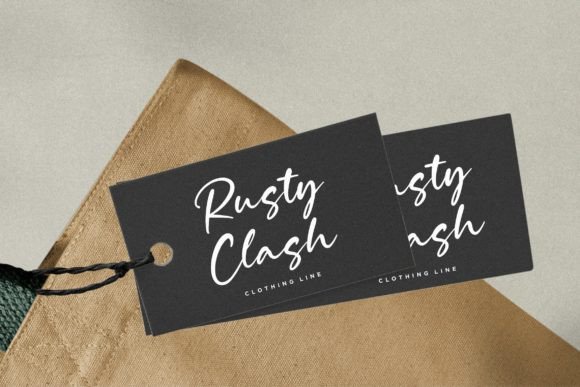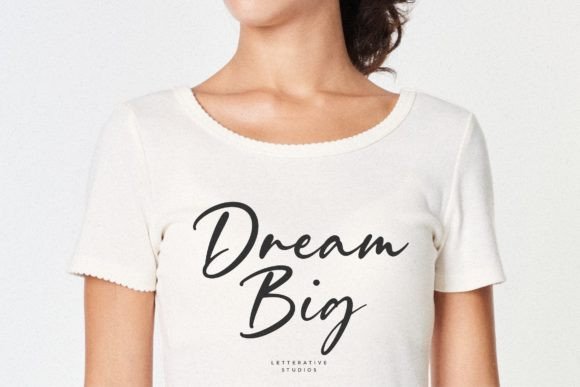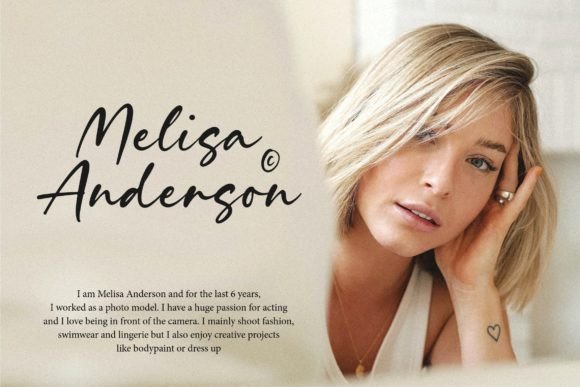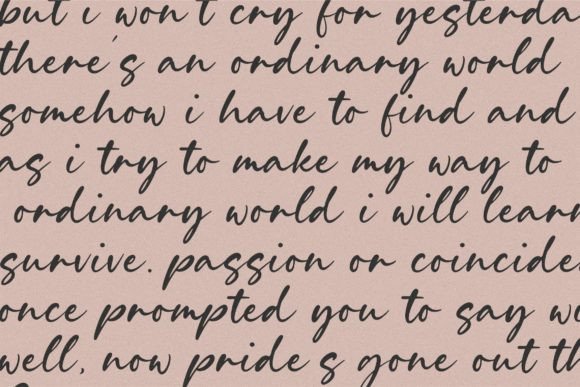
Discover the Versatility of Cinderland Font
Cinderland Font is a modern handwritten typeface that combines style and simplicity. This font works well in a variety of creative projects. Whether you use it for crafts, digital design, presentations, or greeting cards, Cinderland Font has the charm to become your favorite go-to font for any occasion.
Thanks to its smooth lines and balanced strokes, this font adds a personal and elegant touch to every design.
Versatile Uses for Cinderland Font
Cinderland Font suits many creative projects, such as:
Handmade crafts and DIY projects
Digital designs like social media posts and websites
Presentations that need a clean yet friendly look
Greeting cards and invitations
Branding and logo design
Posters, flyers, and marketing materials
Its modern handwritten style brings a fresh and approachable feel that enhances all your ideas.
With its balanced kerning and clear spacing, CinderlandFont ensures your text stays readable and attractive on all sizes and platforms.
Why Designers Love Cinderland Font
Designers and creators appreciate CinderlandFont for its modern look and versatility. It adds a warm and personal touch that suits various design needs. Whether you are a professional or a hobbyist, CinderlandFont helps you produce beautiful and memorable typography effortlessly.
Use CinderlandFont to add modern style and personal charm to your next creative project.